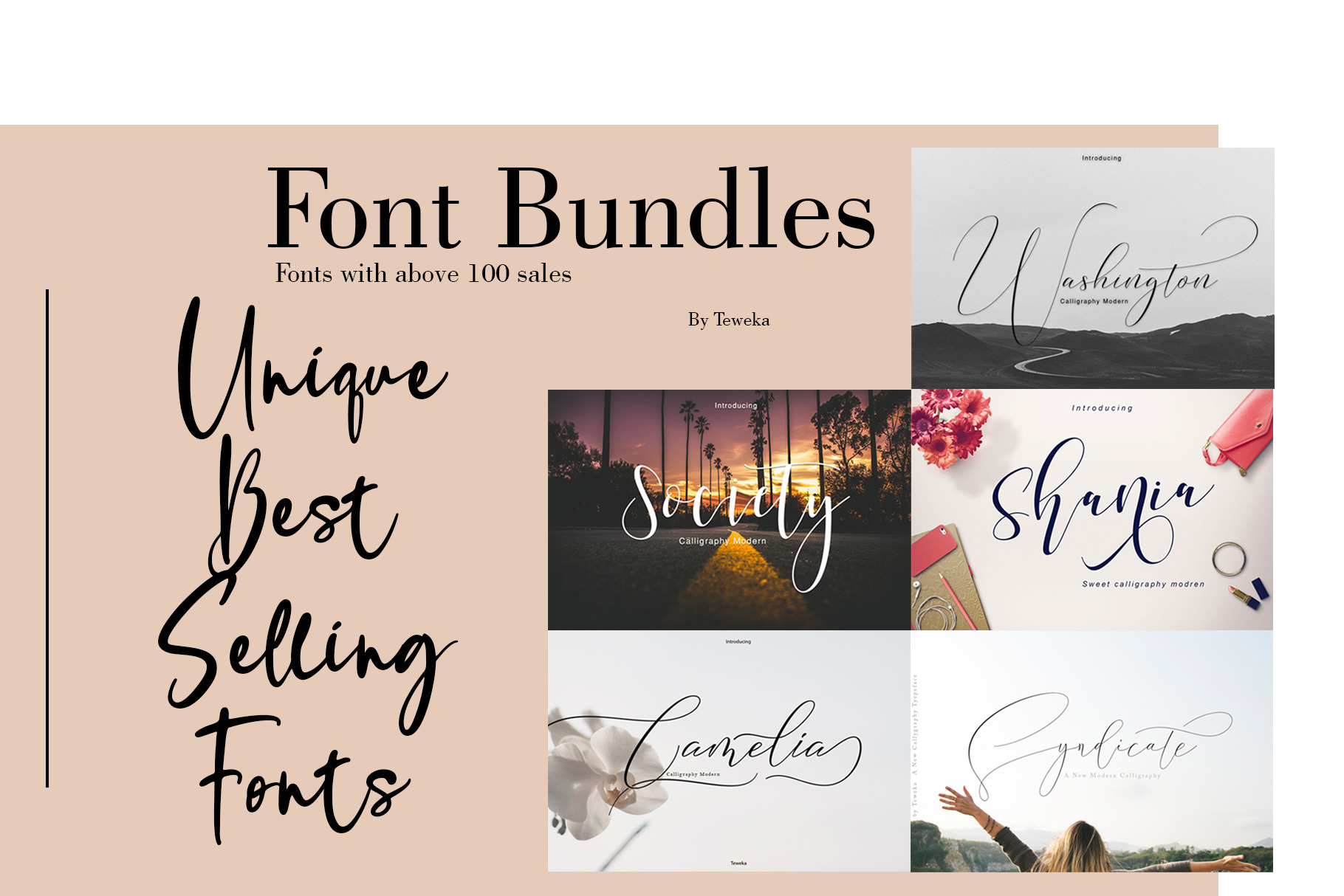
Best Seller Font Bundles
Introducing The Best Selling Font
Unique Modern Font Bundles for all your project needs! This bundle includes five top seller modern and trendy sellers. in Font Washington and shania there is a magizine bonus
Washinton Calligraphy Modern
Shania Sweet Calligraphy
Society Calligraphy Modern
Syndicate A New Callligraphy Modern
Camelia Calligraphy Modern